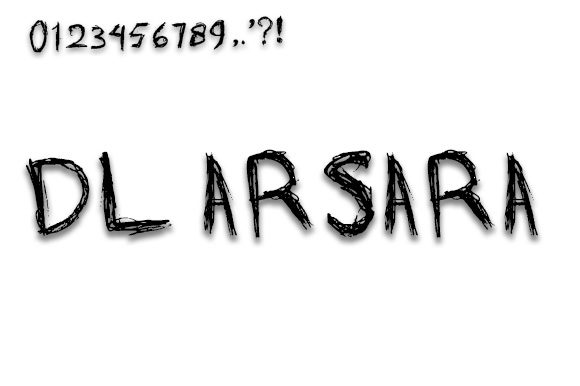
Introduction to Dl Arsara Font
As a designer, have you ever found yourself stuck in the middle of a creative project, desperate for that one element that would bring your design to life? It’s a feeling we’ve all experienced at some point or another. For me, it was while working on a spooky Halloween design that I stumbled upon the perfect solution – the Dl Arsara Font.
This eerie and captivating font is the perfect addition to any horror-themed design, and its free download has made it a favorite among designers. With a transparent background, the Dl Arsara Font can be easily integrated into any creative project, making it a valuable design resource for anyone looking to add a touch of darkness to their work.
Key Features of Dl Arsara Font
- High-quality font designed for creative projects, perfect for designers and artists looking for a unique design resource.
- Designed with a high level of detail and precision, making it suitable for use in a variety of design contexts, from print to digital media.
Honest Review: Dl Arsara Font
I recently stumbled upon the Dl Arsara Font while searching for a high-quality design resource for a creative project. After giving it a try, I’m excited to share my honest review with you.
- The Dl Arsara Font offers a unique, elegant design that’s perfect for adding a touch of sophistication to any project.
Overall, I’m impressed with the Dl Arsara Font’s high-quality design and versatility. It’s an excellent addition to any designer’s toolkit, especially for creative projects requiring a unique touch. While it may have some limitations, it’s definitely worth considering for your next design resource.
To get the most out of the Dl Arsara Font, use it in conjunction with other design elements to create a visually appealing design. Experiment with different font sizes, colors, and styles to achieve the desired look. The Dl Arsara Font is a versatile design resource that can be used in a variety of creative projects.
The Dl Arsara Font is commonly used in creative projects such as logos, branding materials, and marketing materials. Its high-quality design and transparent background make it an ideal choice for designers and non-designers alike.